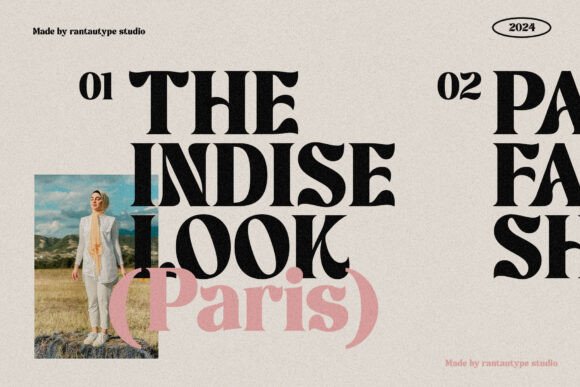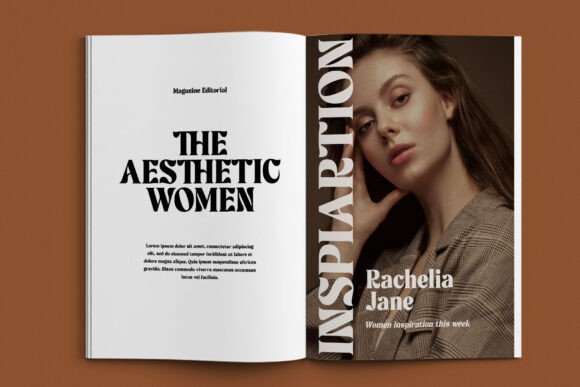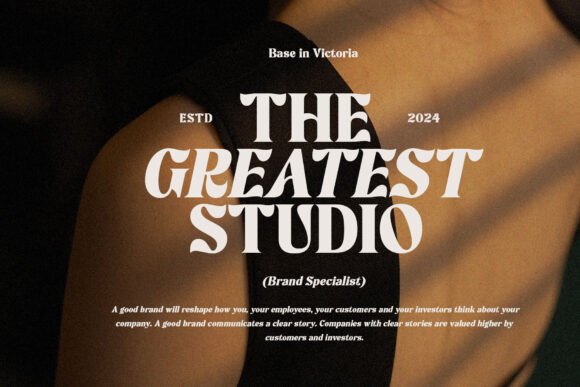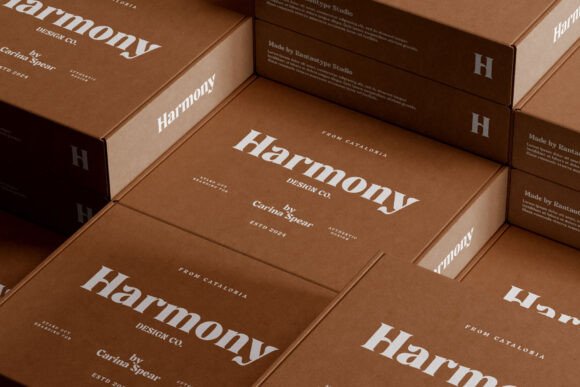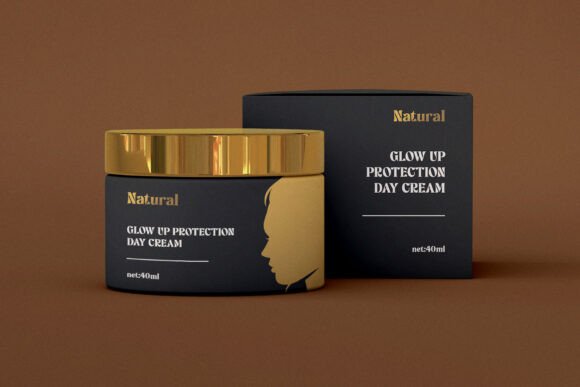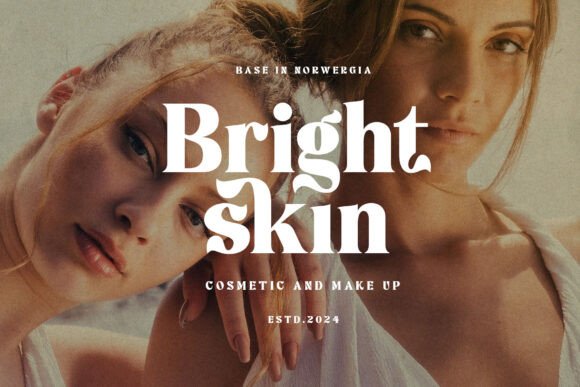
Introduction to Rochega Font
Have you ever stared at a blank page, feeling the pressure to create something truly special for a loved one or a client? For many designers, this moment is a constant source of inspiration and stress. But what if you had the perfect tool to bring your vision to life? Enter the elegant and bold Rochega Font, a game-changing design resource that’s about to become your new best friend.
With its incredibly versatile style, Rochega Font is the perfect companion for any creative project, from beautiful wedding invitations to eye-catching social media posts. Its high-quality design and transparent background make it a joy to work with, and the best part? It’s available for free download, making it a valuable addition to any designer’s toolkit.
Whether you’re a seasoned pro or just starting out, Rochega Font is a must-have resource that will elevate your designs and take your creative projects to the next level.
Key Features of Rochega Font
- Rochega Font is a high-quality design resource ideal for creative projects requiring a unique touch.
- Its unique characteristics, such as its elegant and sophisticated design, make it a valuable addition to any design collection.
Honest Review: Rochega Font
I recently had the chance to work with the Rochega Font, and I must say it’s a solid addition to any designer’s toolkit. This high-quality font is perfect for creative projects that require a unique touch.
- ✨ Its clean and modern design makes it suitable for a wide range of applications, from logos to headings.
- ⚠️ The font family is relatively small, which might limit its versatility in certain design scenarios.
Overall, I’m impressed with the Rochega Font. It’s a reliable design resource that can elevate any creative project. While it’s not without its limitations, its high quality and free download make it a valuable addition to any designer’s collection.
Rochega Font
The Rochega Font is a high-quality design resource ideal for creative projects that require a unique touch. It’s available for free download and can be easily integrated into various design platforms.
The Rochega Font is perfect for a variety of applications, including logos, business cards, social media graphics, and presentations. Its unique design and high-quality aesthetic make it an ideal choice for any creative project requiring a touch of sophistication.